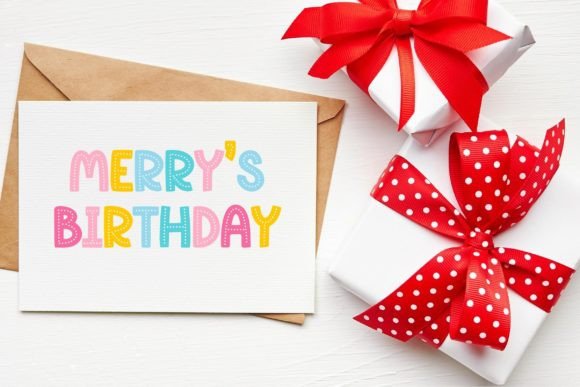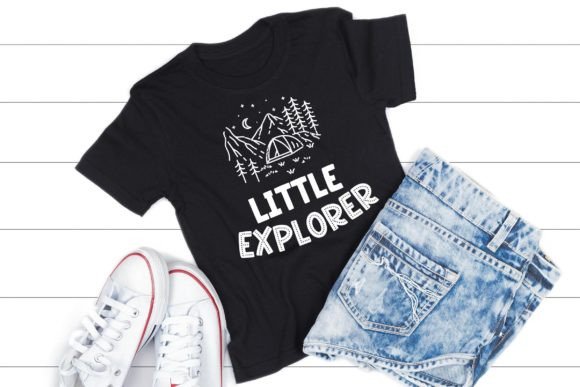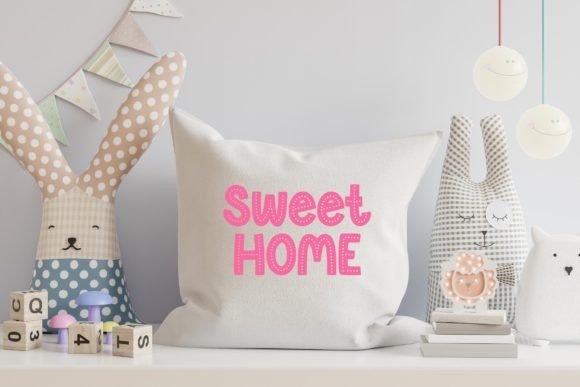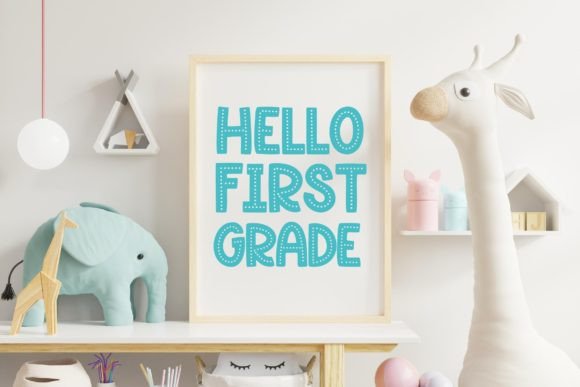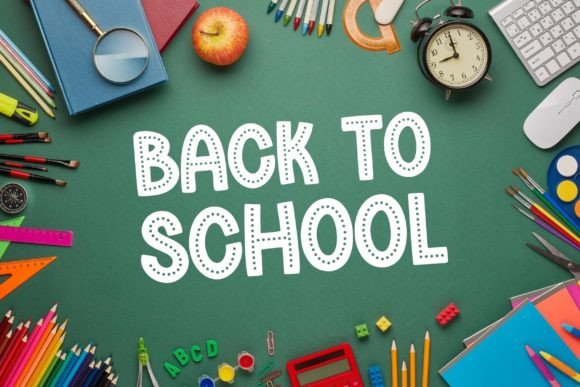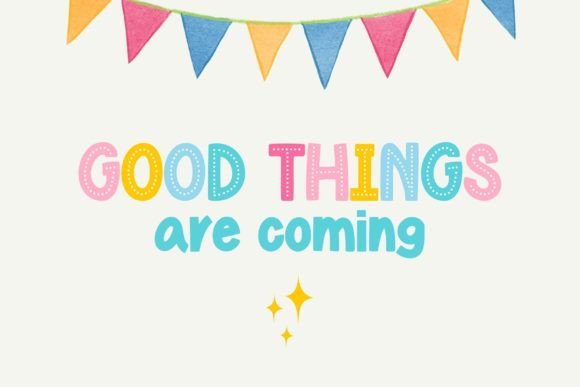
Birthday Girl Font
“Birthday Girl” the adorable handwritten display font that oozes youthful charm, adorned with delightful dotted details that infuse your designs with a playful and fun vibe. Offering two distinctive styles – Dotted and Solid – this bold and kid-friendly font is your go-to for a wide array of children’s projects. From designing cheery t-shirts and captivating tote bags to creating cute mugs, endearing stickers, inviting invitations, lively logos, engaging social media content, vibrant posters, captivating wall art, and so much more, “Birthday Girl” brings the spirit of childhood celebration to every creative venture. With its dual style options, this font provides the versatility to add a unique and playful touch to your projects, making each one a memorable and joyful experience.